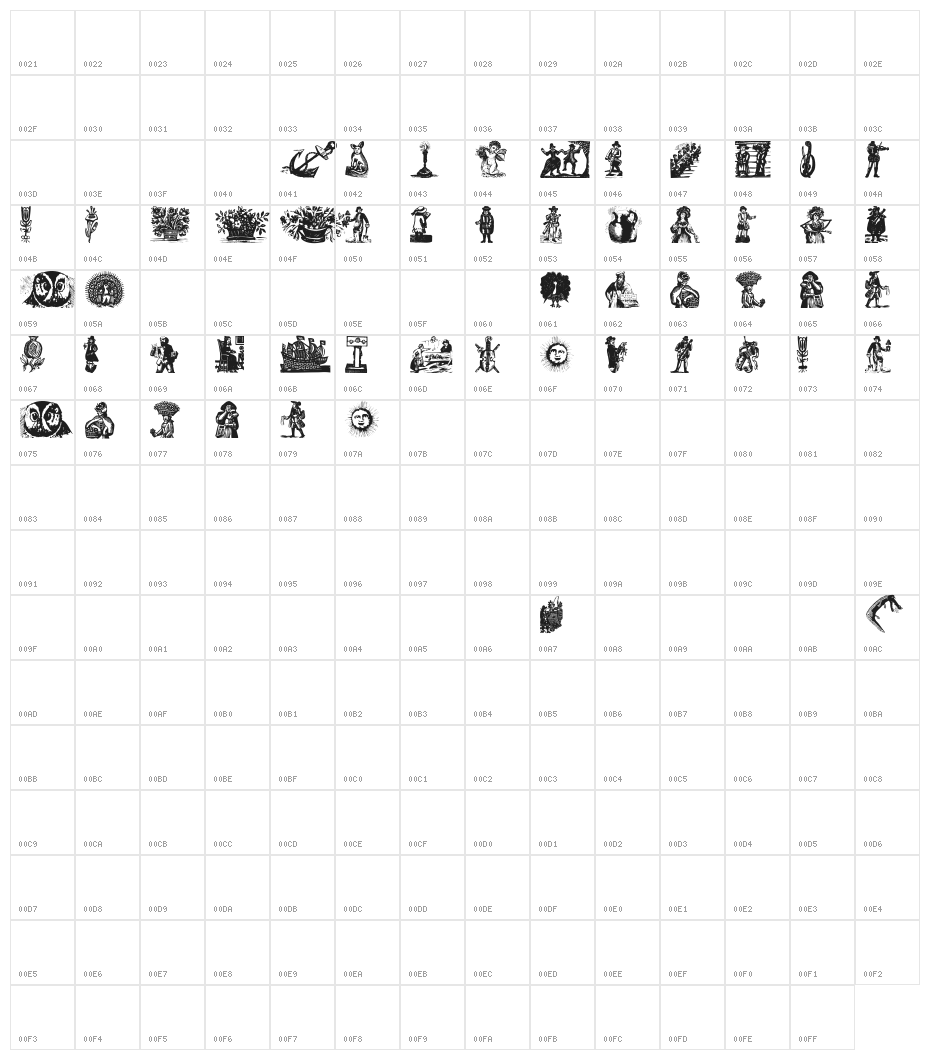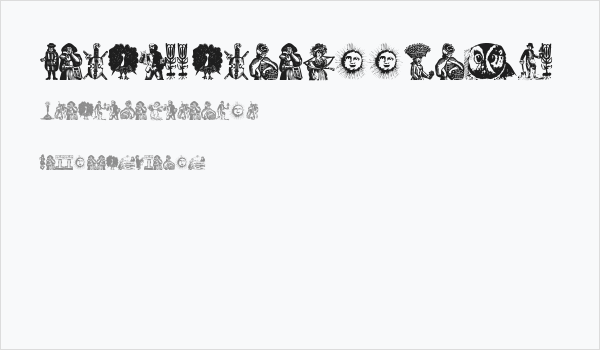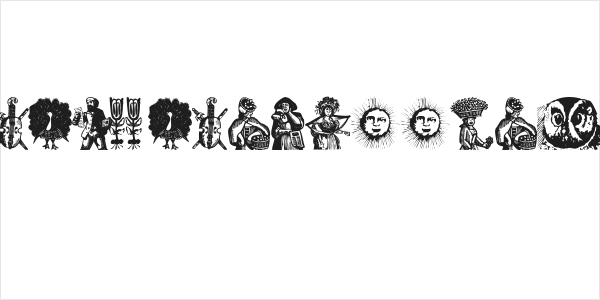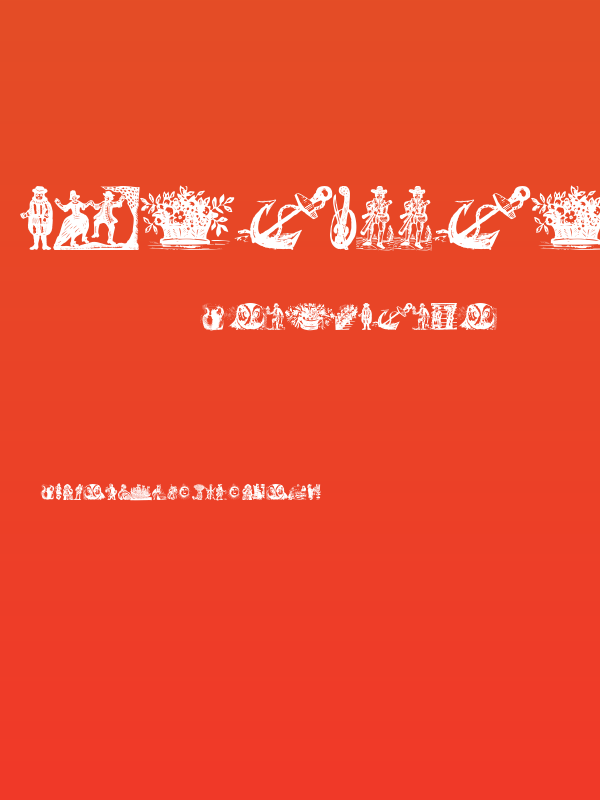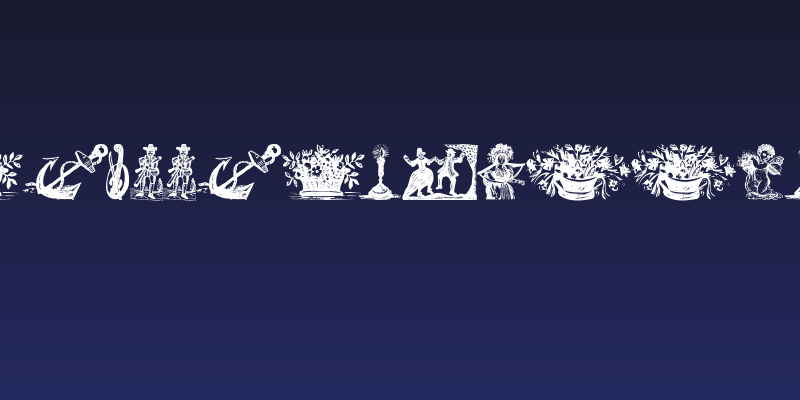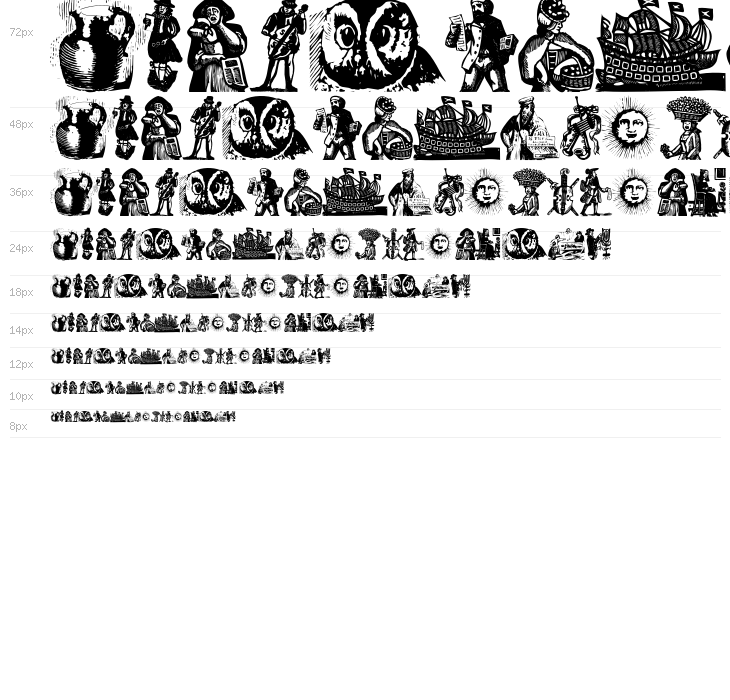
RenaissanceWoodcuts Font
RenaissanceWoodcuts Description
This collection features intricate woodcut illustrations reminiscent of the Renaissance period. Each character is a detailed depiction of historical figures, flora, fauna, and symbolic elements, capturing the essence of the era with bold lines and rich textures. The designs are highly decorative, showcasing a variety of scenes and motifs that reflect the artistic style of the time. The illustrations are black and white, emphasizing the contrast and detail typical of woodcut art. This set is ideal for adding a touch of historical elegance and artistic flair to any project.
| Use Case | Decorative elements, Artistic projects, Historical themes |
| Proposed Projects | Ideal for historical publications, artistic projects, educational materials, and decorative designs. |